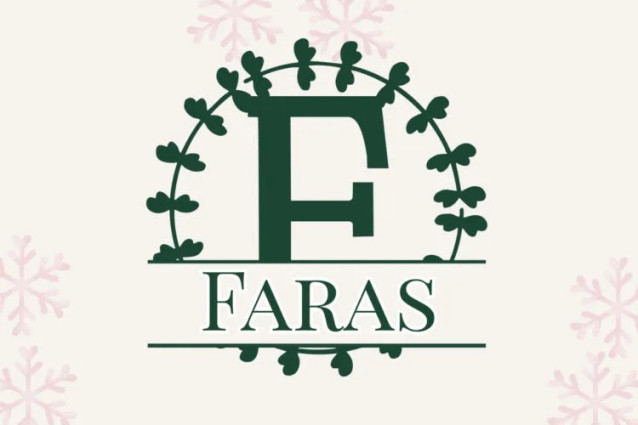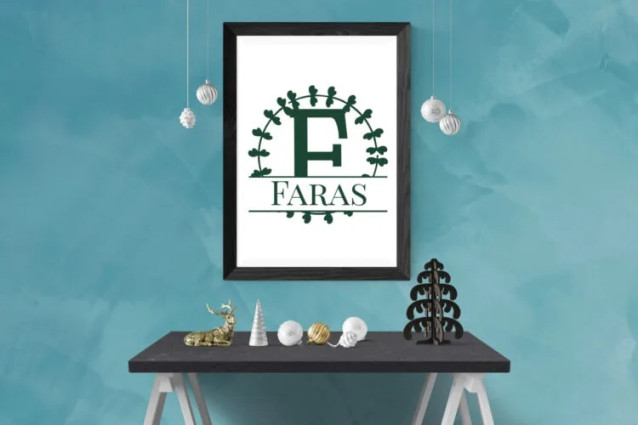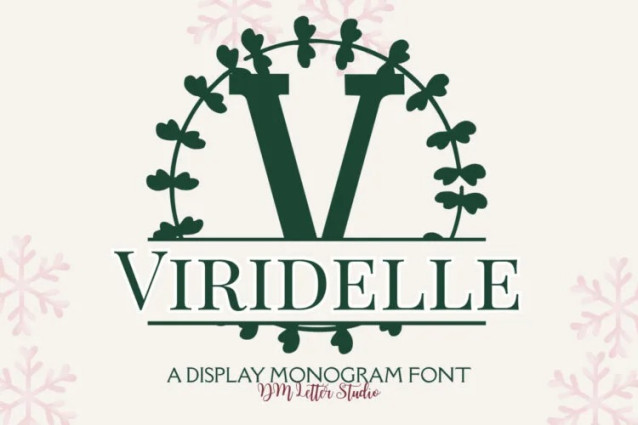
Viridelle Split Monogram Font
Viridelle Split Monogram Font turns simple initials into fresh, botanical emblems with a clean center split for names or dates. It feels light, natural, and premium without being ornate. The strokes are smooth and balanced, so letters stay readable at any size. Because counters stay open, small tags remain crisp while larger signs look sharp and refined. Use it for wedding suites, boutique logos, gift items, stationery, and luxury packaging. As a result, your designs feel personalized and polished with minimal setup.
Fast layouts with the Viridelle Split Monogram Font
Start with a bold split initial and center it as the main focus. After that, place a name, family title, or date across the split using a separate supporting font if needed. Because Viridelle Split holds shape at small sizes, labels, stickers, tags, and cards stay clean. In addition, it works beautifully with oval frames, wreath outlines, thin dividers, and simple leaf accents, so full sets come together quickly. Finally, save palette pairs like sage & ivory, emerald & cream, champagne & charcoal, or navy & pearl to reuse across your product line.